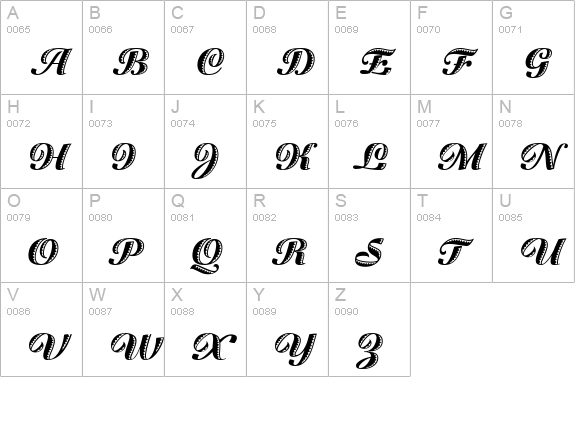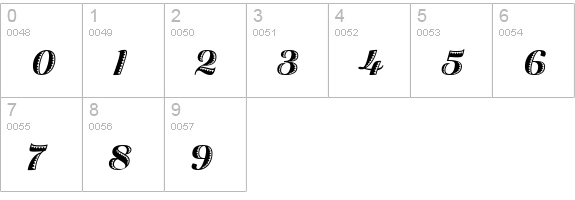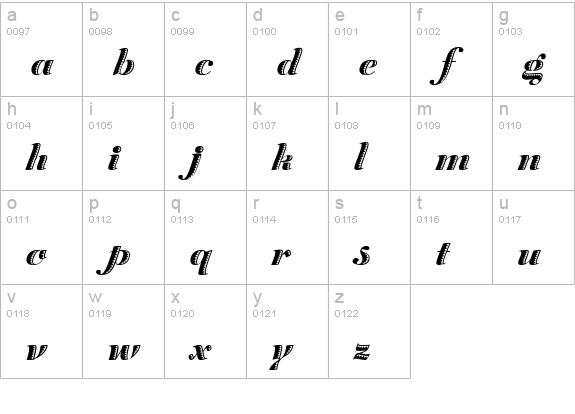
Zaragoza Plain Font Details
Zaragoza Plain font is a versatile and stylish typeface that exudes elegance and sophistication. With its clean lines and classic design, this font is perfect for a wide range of design projects, from branding to editorial design. The simplicity of Zaragoza Plain font allows it to be easily readable, making it suitable for both print and digital applications. Whether you're creating a logo, designing a website, or working on a brochure, Zaragoza Plain font will add a touch of timeless charm to your work. The best part is that Zaragoza Plain font is available for free download at FontsMarket.com. This means you can enjoy using this beautiful font in your projects without any cost. Simply head over to FontsMarket.com to grab your own copy of Zaragoza Plain font and start incorporating its elegance into your designs today.